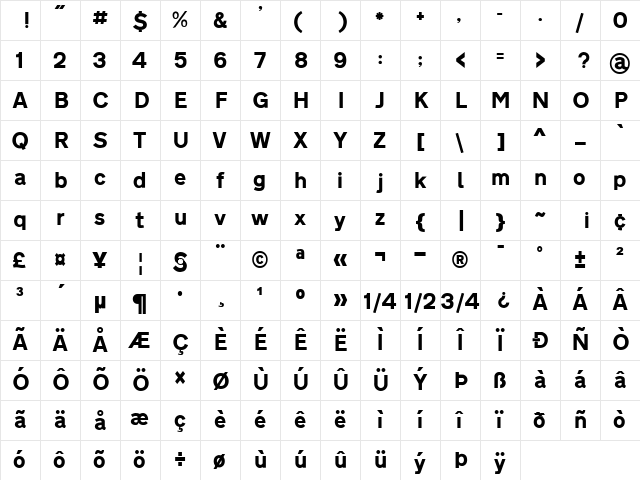
Complete Roadgeek 2005 Transport Heavy Regular glyph index. Displaying only characters natively supported by Roadgeek 2005 Transport Heavy Regular font.
Roadgeek 2005 Transport Heavy brings high-energy athletic personality to the page - its confident, muscular forms are built for impact.
Pro Tip: Use Roadgeek 2005 Transport Heavy in all-caps headlines where its athletic energy can fully express itself. Pair with a solid, simple sans for supporting text.